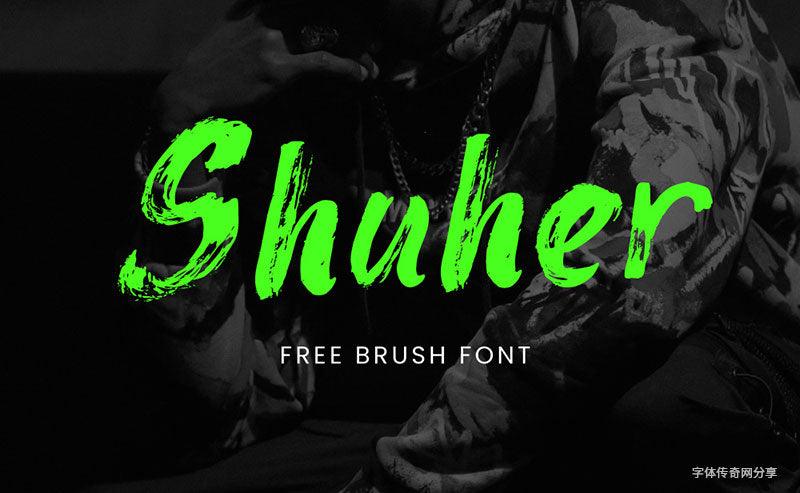
🎁 Free Shuher Handwritten Calligraphy Font – Vibrant Brush Strokes • Commercial Use 🔥
- Font Name: Shuher Handwritten Calligraphy English Font
- Font Style: Handwritten Calligraphy / Brush Stroke / Free & Artistic
- Application Scenarios: Art posters, music album covers, creative brand logos, social media graphics, urban fashion designs
Core Selling Points
- Eye-Catching Visuals: Features lively, bold brush strokes that bring energy and personality to designs, making them stand out instantly.
- Authentic Handwritten Feel: Mimics real calligraphy handwriting, adding an artistic and raw charm to every letter, perfect for projects needing a personal touch.
- Wide Usage Range: Ideal for creative branding, artistic promotions, or dynamic visual content—enhances designs in music, art, fashion, and digital media.